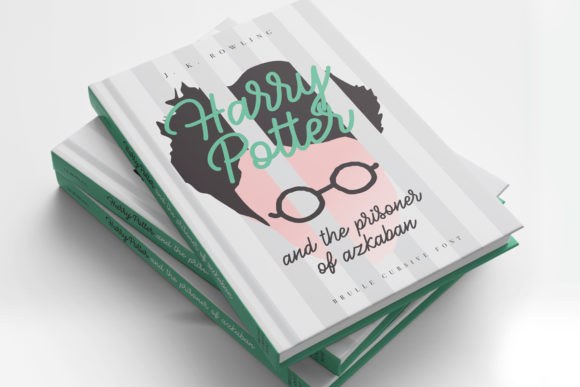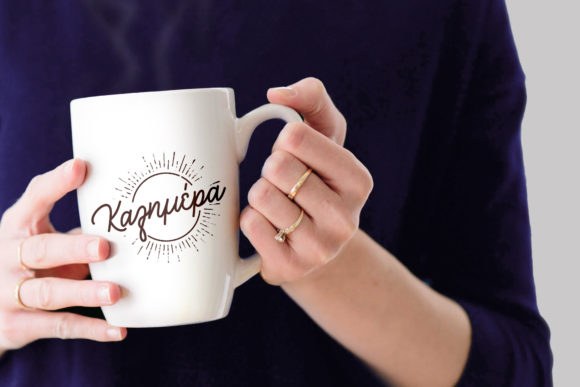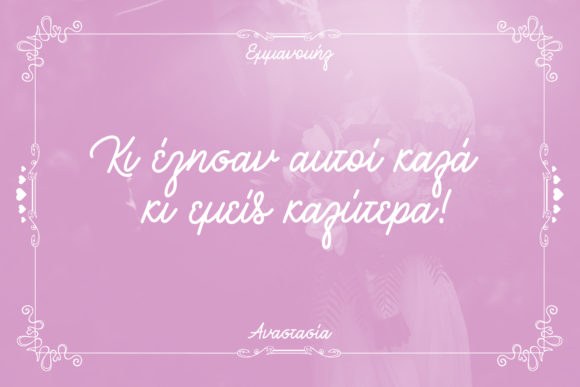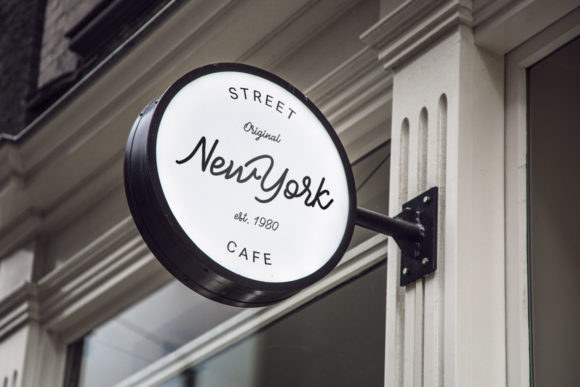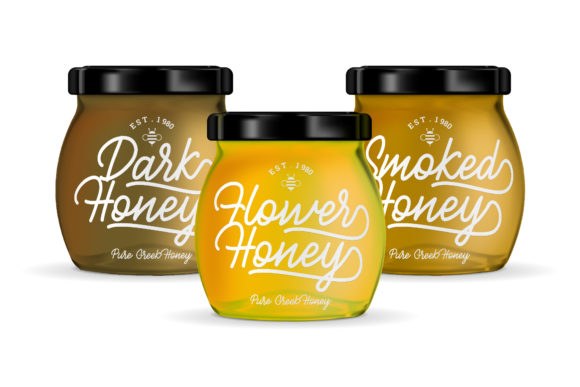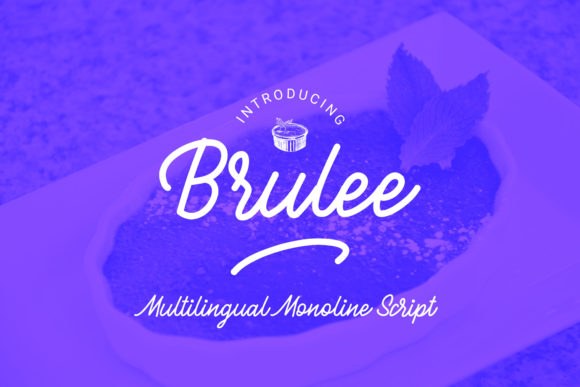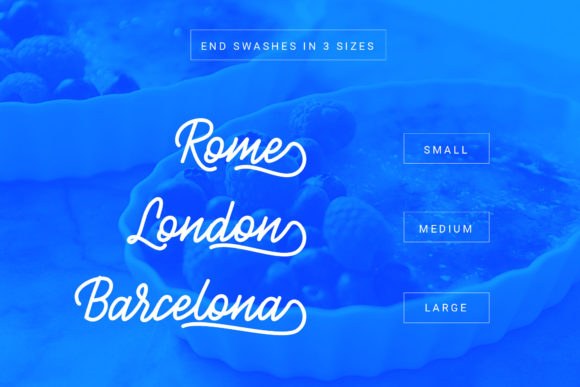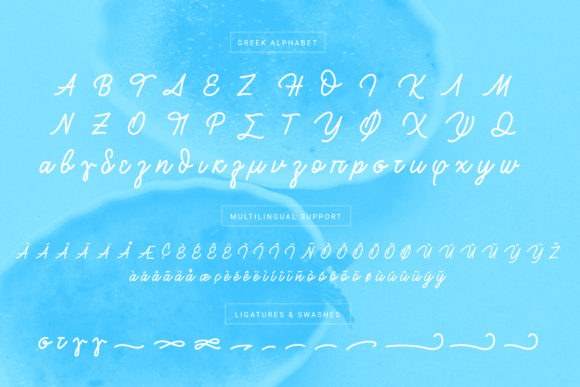
Brulle Font
Brullee is a sweet and stunning script with incredible letters. Use it to turn any design project into a true standout!
Where Brulle Font works best
Brulle Font brings a personal, handwritten warmth to invitations, menus and place cards.
Craft brands — coffee, cosmetics, bakery — use scripts like Brulle Font for signature-style logos and labels.
Pair Brulle Font with a plain sans for quotes, stories and Pinterest pins that feel handmade.
What is Brulle Font good for?
Brulle Font is a Script And Handwritten typeface tagged Handwritten, Professional, Script, Script And Handwritten. It works well for headlines, logos, posters, social media graphics and branding projects that need a distinctive script and handwritten look.